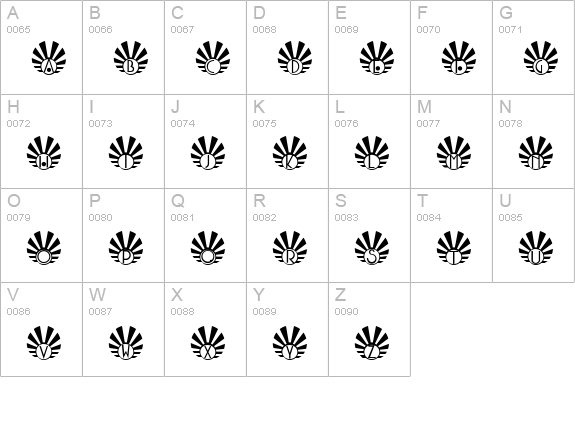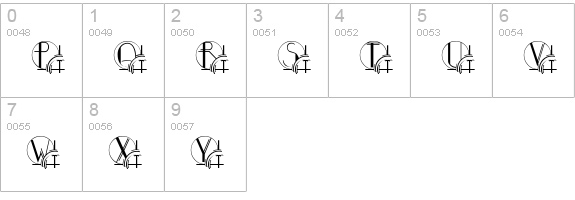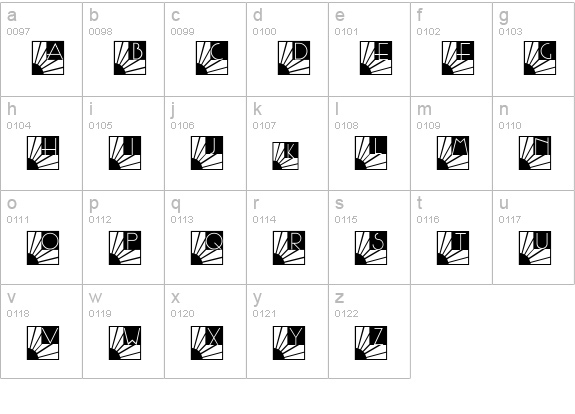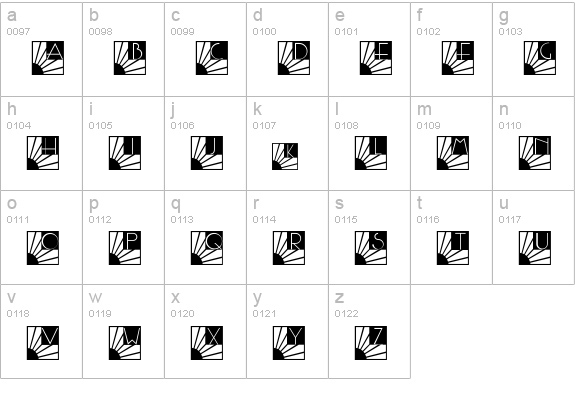
SunriseSunset Font Details
SunriseSunset font is a stunning display typeface that captures the essence of a beautiful sunrise and sunset in its elegant design. With its graceful curves and stylish flair, this font is perfect for adding a touch of sophistication to your projects. Whether you're working on branding, packaging, invitations, or any other creative venture, SunriseSunset font will make your text stand out with its unique charm. The best part? SunriseSunset font is absolutely free to download at FontsMarket.com, making it accessible to all designers and creatives looking to elevate their work with a touch of beauty and grace. Don't miss out on this gorgeous font that will bring a touch of sunrise and sunset magic to your projects. Download SunriseSunset font today and let your creativity shine!